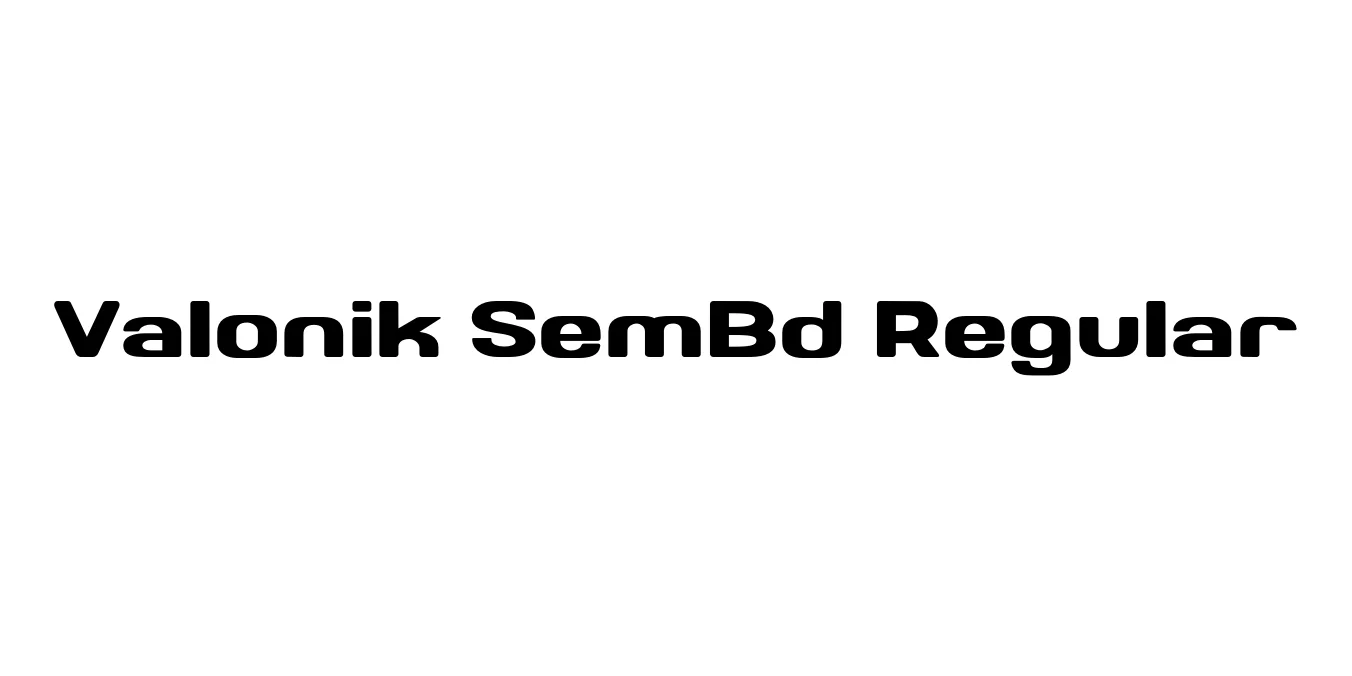
Valonik SemBd Regular
Designed by Valonik Foundry
Valonik SemBd Regular is a contemporary sans-serif typeface designed with a focus on geometric precision and modern aesthetics. It features clean lines and a high X-height, making it exceptionally legible in both print and digital environments. The Semi-Bold weight offers a perfect balance between impact and readability, allowing designers to create strong visual hierarchies without overwhelming the overall composition.
The font's versatility stems from its neutral yet distinct character, which adapts well to various design contexts. Whether used for minimalist branding projects or complex editorial layouts, Valonik SemBd Regular provides a sophisticated feel. Its architectural structure and balanced proportions make it a go-to choice for designers looking for a reliable, modern typeface that bridges the gap between classic sans-serifs and futuristic design trends.
Valonik SemBd Regular Best Uses
Ideal for creating strong, modern logos and corporate identities.
Perfect for headlines and pull quotes in magazines and digital publications.
Highly legible for user interfaces and hero sections on websites.
Effective for high-impact marketing materials and social media graphics.